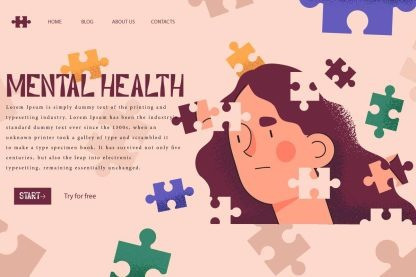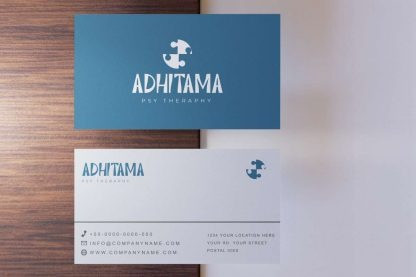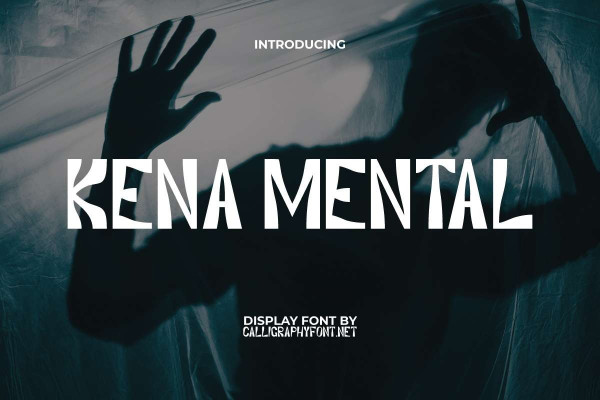
Kena Mental Font
Kena Mental Font is a unique irregular block display font inspired from mental health problems. This type of font has a slightly tall shape, a little thick and wavy in certain parts making it look like the broken parts are then connected. This reminds us of the importance of mental health which must be maintained because it will be difficult to repair if it is damaged. It has been set up so that it is suitable for any industry, such as advertising material, author, homeware, movie, organization and campaign events, psychiatrist specialist, writer, and things related.
Kena Mental Font is a work of art in the field of writing (typeface) to represent support for mental health recovery which would be the right choice as primary text and/or secondary text (paired with other font types). It will be versatile in any project, such as apps, billboard, book cover, brand logo, brochure, business card, header, mockup, packaging design, poster, screen print, signage, stationery, sticker, watermark, website, etc.